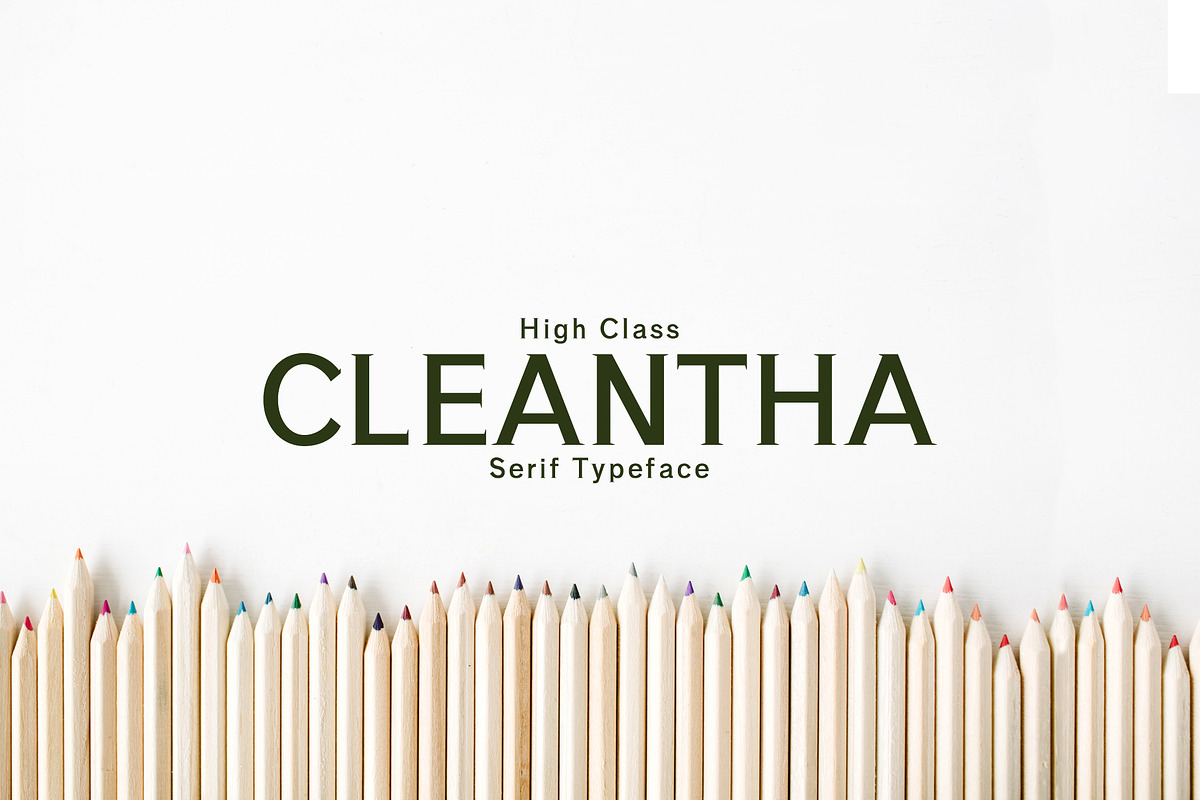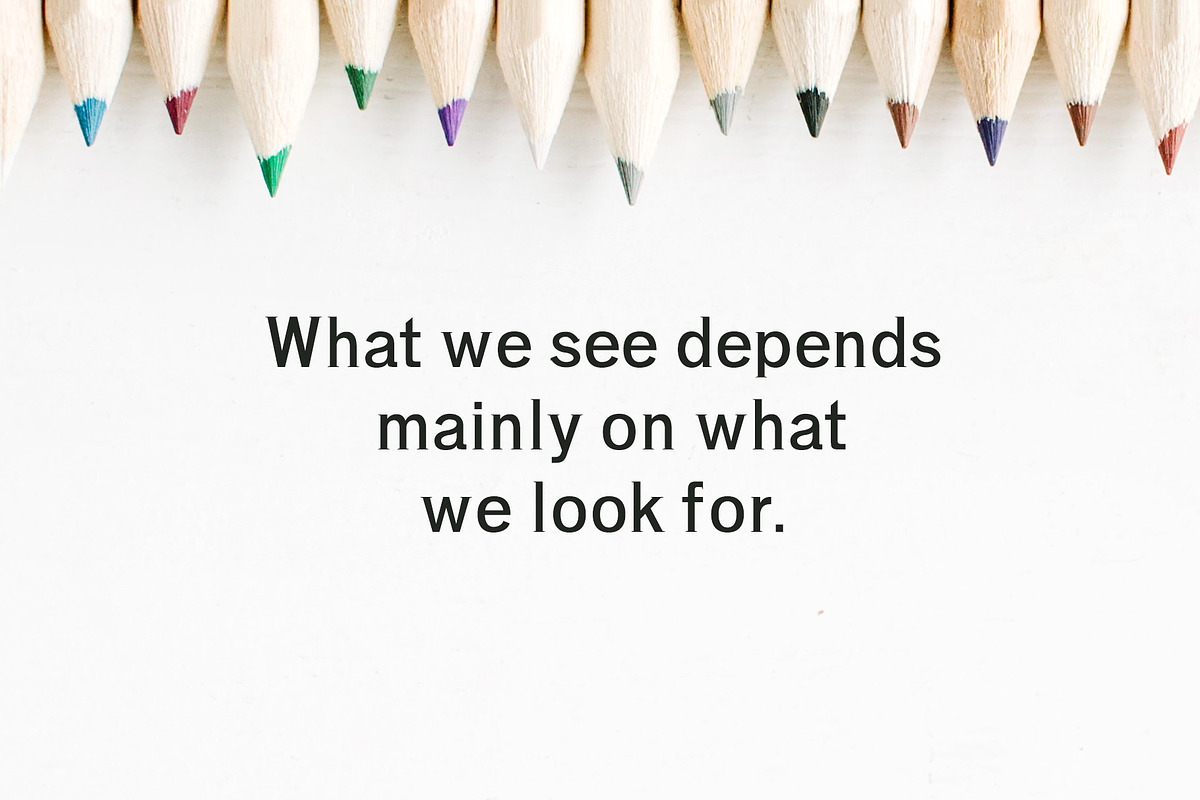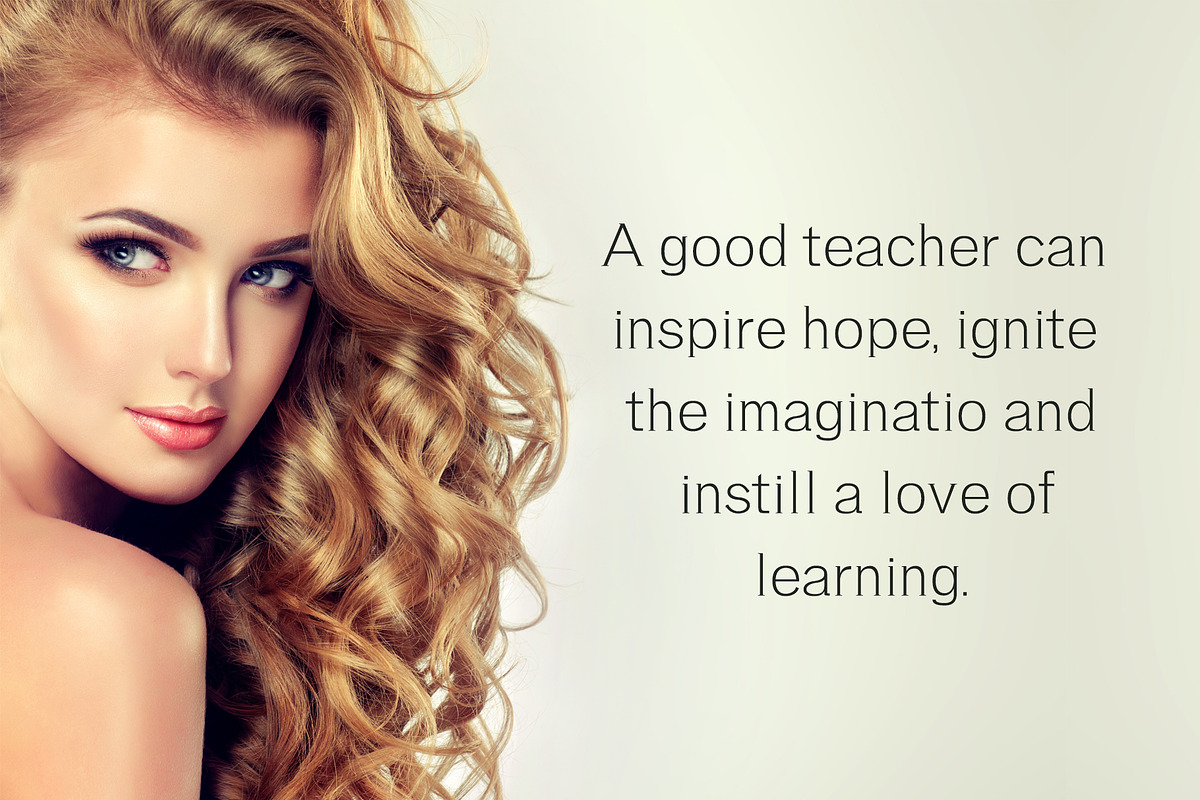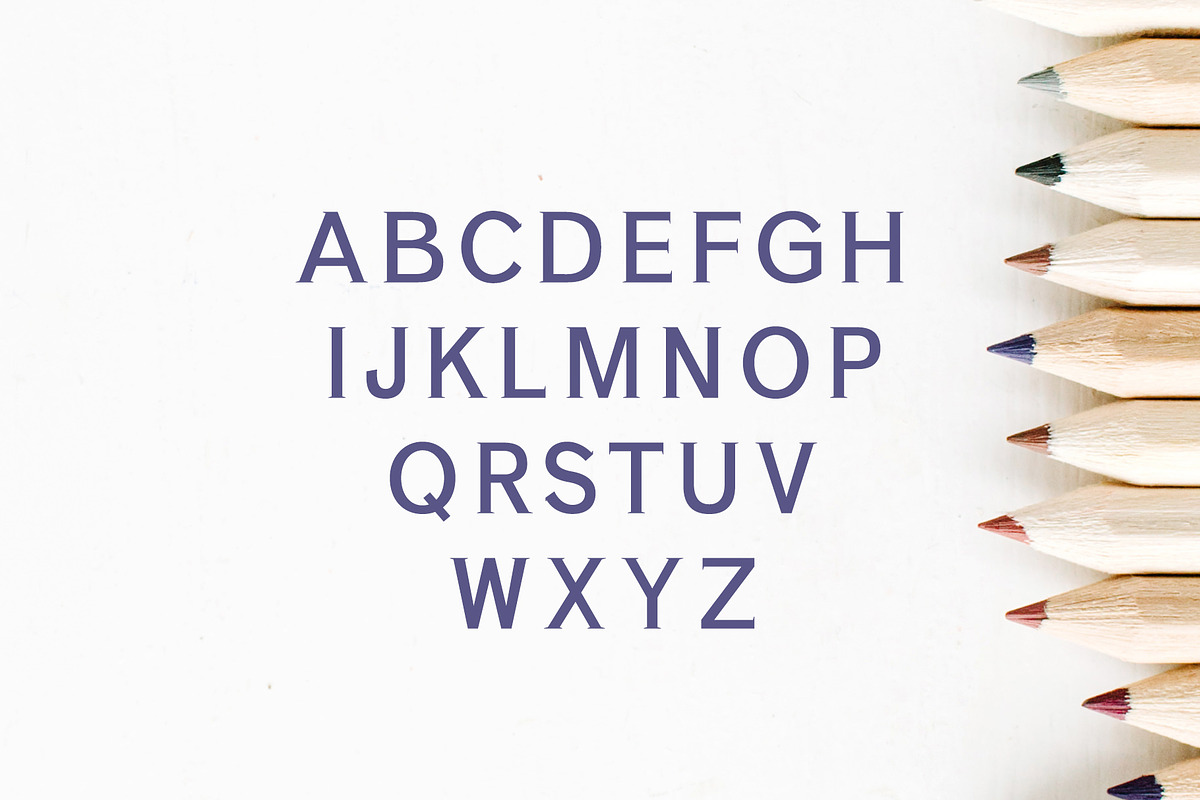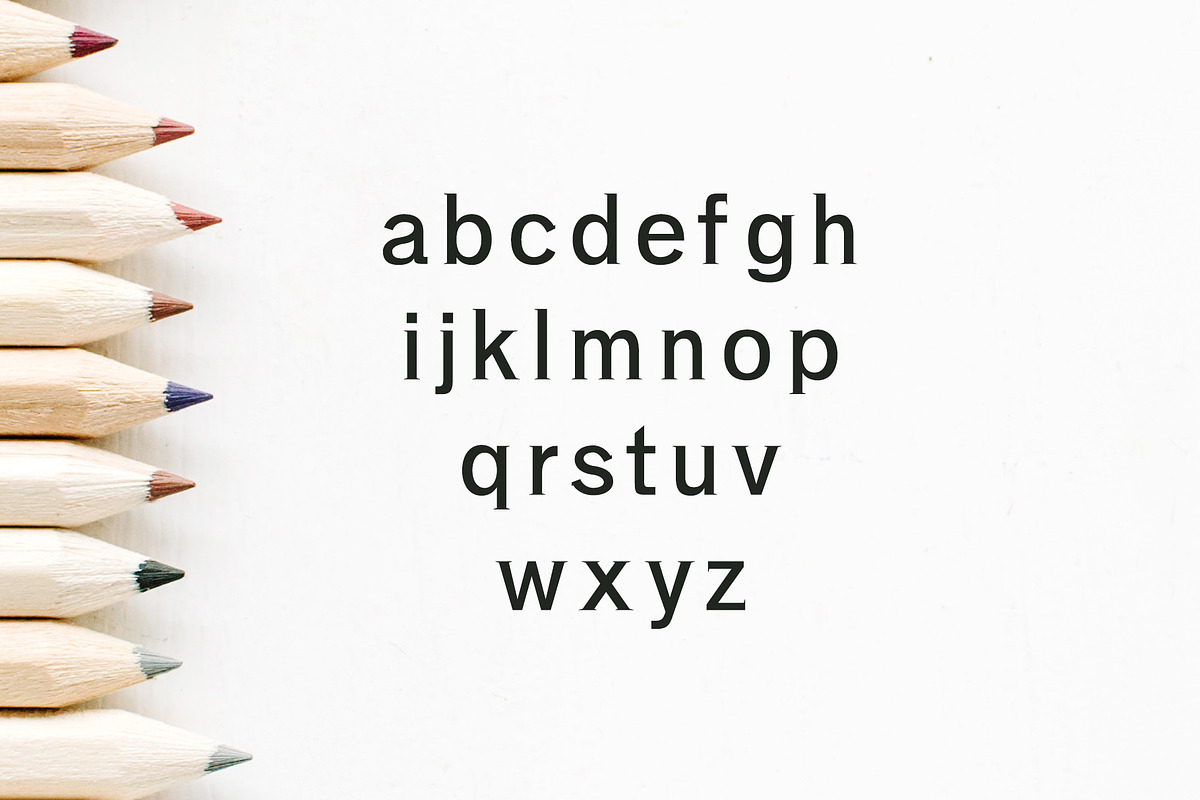
Cleantha Serif 5 Font Family Pack
Cleantha Serif Typeface is a minimal clean serif font family, which contains 5 weights and It features unique and modern serif look and feel. Perfect for gorgeous logos, titles, web layouts and branding. It looks gorgeous in all caps with a wide-set spacing if you want to try a classy look, or beautiful on its own in capital and lowercase letters for something completely timeless.
Font Weight: Regular, Thin, Light, Outline and Bold
Cleantha Font Features:
- Font Weight: Regular, Thin, Light, Outline and Bold
- Cleantha Thin
- Cleantha Light
- Cleantha Light Outline
- Cleantha Regular
- Cleantha Bold